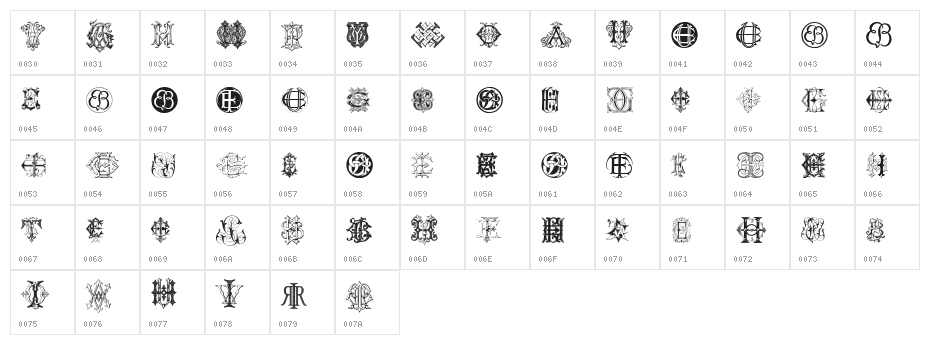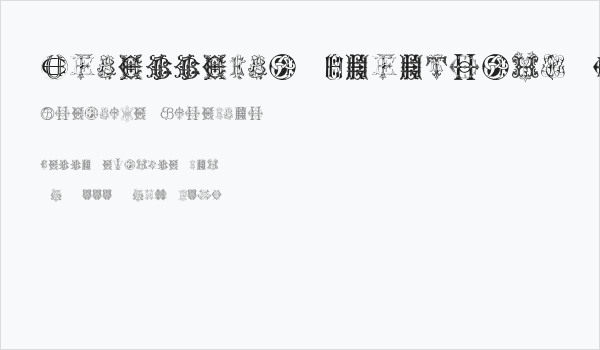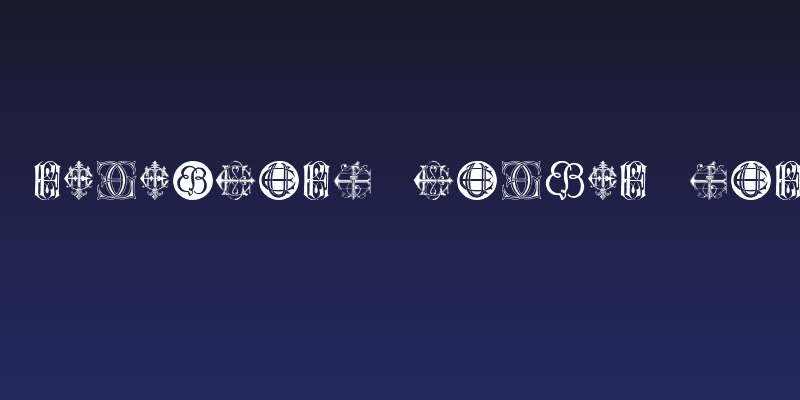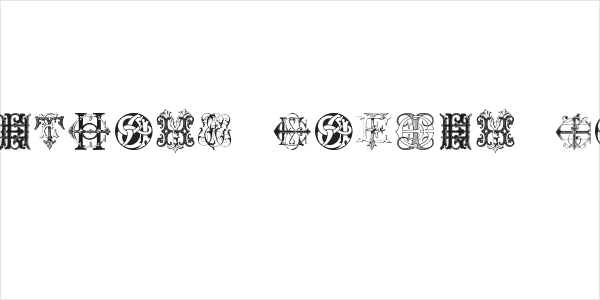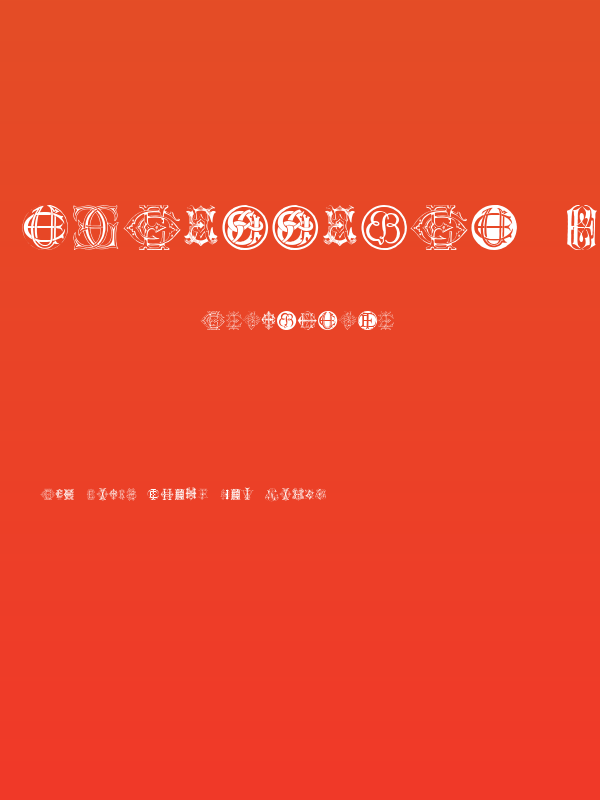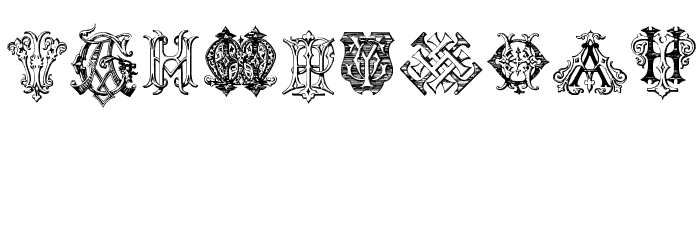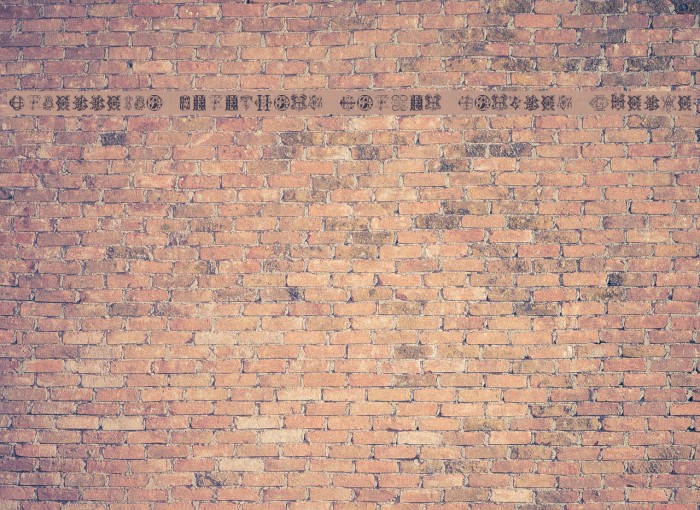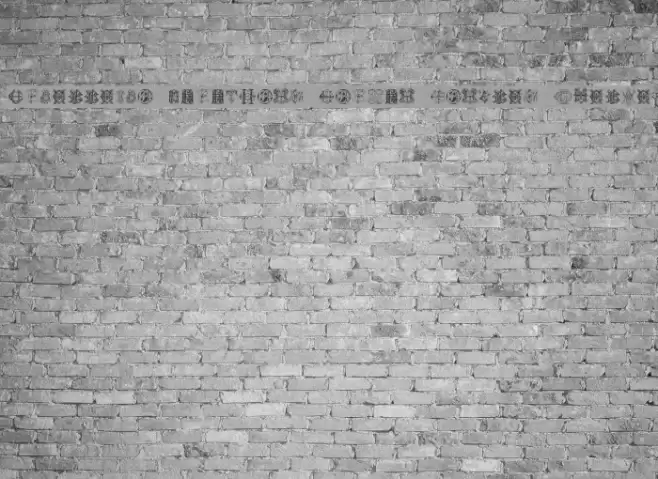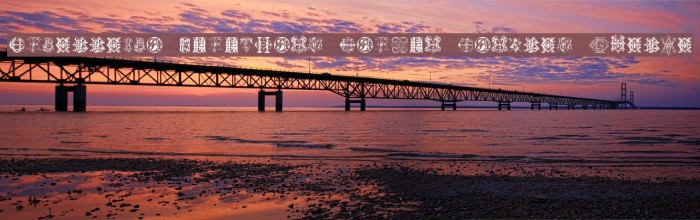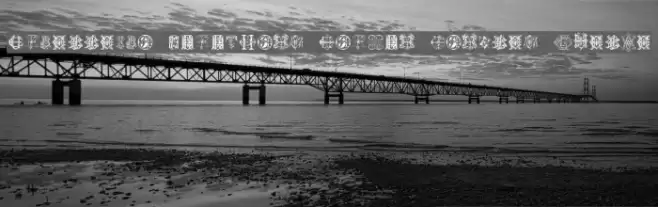
Intellecta Monograms Random Samples Twelve Font
| النمط العام | Vintage |
| حالة الاستخدام | Logos, Invitations, Decorative headings |
| مشاريع مقترحة | Ideal for wedding invitations, luxury branding, historical documents, or any project seeking a classic and elegant touch. |
| المؤلف | Fonts by Måns Grebäck |